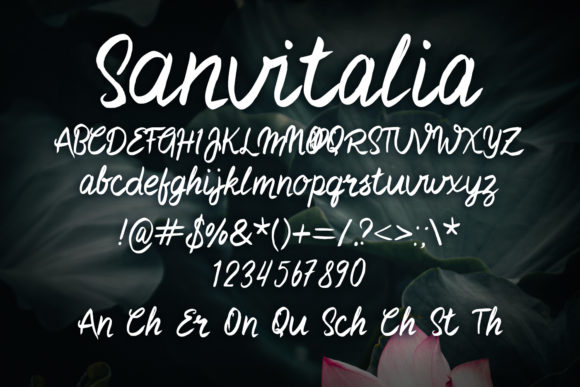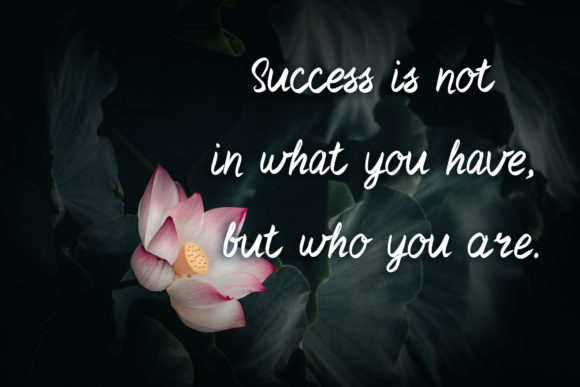
Introduction to Sanvitalia Font
As designers, we’ve all been there – staring at a blank canvas, eager to bring a creative project to life. The perfect font can make all the difference, adding a touch of personality to our designs and making them truly stand out. And that’s exactly what the Sanvitalia Font does.
With its delicate, handwritten charm, this font is a game-changer for designers looking to add a personal touch to their work. Whether you’re creating a beautiful wedding invitation, a stunning social media graphic, or a high-quality brochure, the Sanvitalia Font is the perfect design resource to elevate your project.
Key Features of Sanvitalia Font
- Features a transparent background, allowing for easy customization and layering in design compositions.
- Includes a comprehensive set of characters, including uppercase and lowercase letters, numerals, and punctuation marks.
- Designed with a high resolution, suitable for use in a variety of contexts, from print materials to digital displays.
- Perfect for designers seeking a versatile and stylish font to elevate their creative projects and design portfolios.
Honest Review: Sanvitalia Font
I recently had the chance to work with the Sanvitalia Font on a creative project, and I must say it’s a great addition to any designer’s toolkit. This free download is a high quality design resource that can help elevate your work.
- ✨ The font’s unique, elegant design makes it perfect for projects that require a touch of sophistication.
- ✨ It’s incredibly versatile and can be used for a wide range of applications, from titles to body text.
- ✨ The transparent background option is a great feature, allowing you to easily integrate the font with your design without any distractions.
- ⚠️ The font’s legibility can be affected by certain font sizes and styles, so be sure to test it thoroughly before use.
- ⚠️ Some users may find the font’s elegance too subtle, making it difficult to read at smaller sizes.
Overall, I’m impressed with the Sanvitalia Font. Its unique design and versatility make it a valuable asset for any designer working on a creative project. While it may have some limitations, it’s definitely worth considering for your next design project.
How to Use Sanvitalia Font
The Sanvitalia Font is a versatile and stylish design resource that can elevate your creative project. With its modern aesthetic and clean lines, it’s perfect for a variety of applications.
Tips for Getting the Most Out of Sanvitalia Font
To get the most out of the Sanvitalia Font, experiment with different font sizes, colors, and effects. You can also combine the font with other design resources, such as graphics and images, to create a unique and eye-catching design.
The Sanvitalia Font is suitable for a variety of creative projects, including:
- Wedding invitations and event materials
- Brand identities and logos
- Marketing materials and social media graphics
Alternatives to Sanvitalia Font
The Great Vibes Font is a high-quality, handwritten font that’s perfect for creative projects requiring a touch of elegance and sophistication. Its transparent background makes it ideal for overlaying text on images. Great Vibes Font is a great alternative to Sanvitalia Font for designers who want a more refined and delicate look.